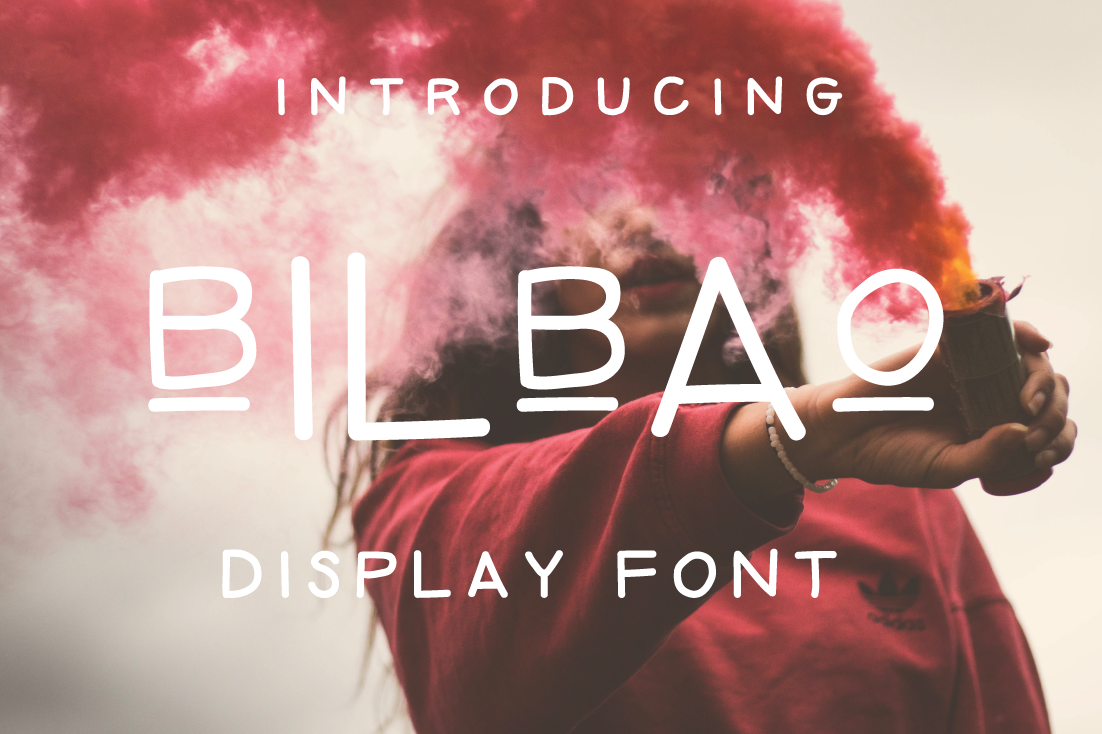
Bilbao | Playful Handwritten Font
Bilbao-regular
Bilbao is a playful and versatile display sans-serif font. Play with it by changing the lower and uppercase letters to get a unique look every time. Perfect for quotes, stationery design, wedding invitations, website design, poster design, t-shirts and much more. Bilbao contains a character set for English, German, Spanish, French, Italian, Danish, Swedish, Norwegian, Icelandic, Hungarian and more. To see the full set, please see the photos!